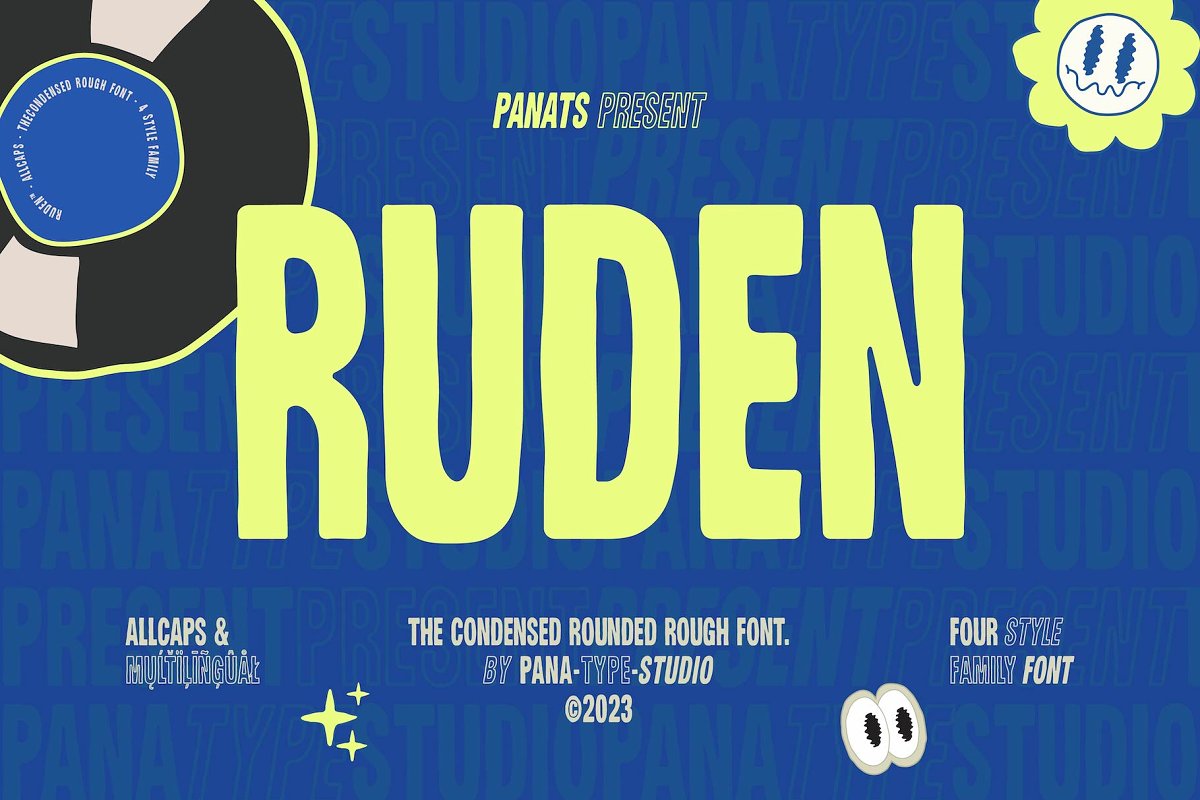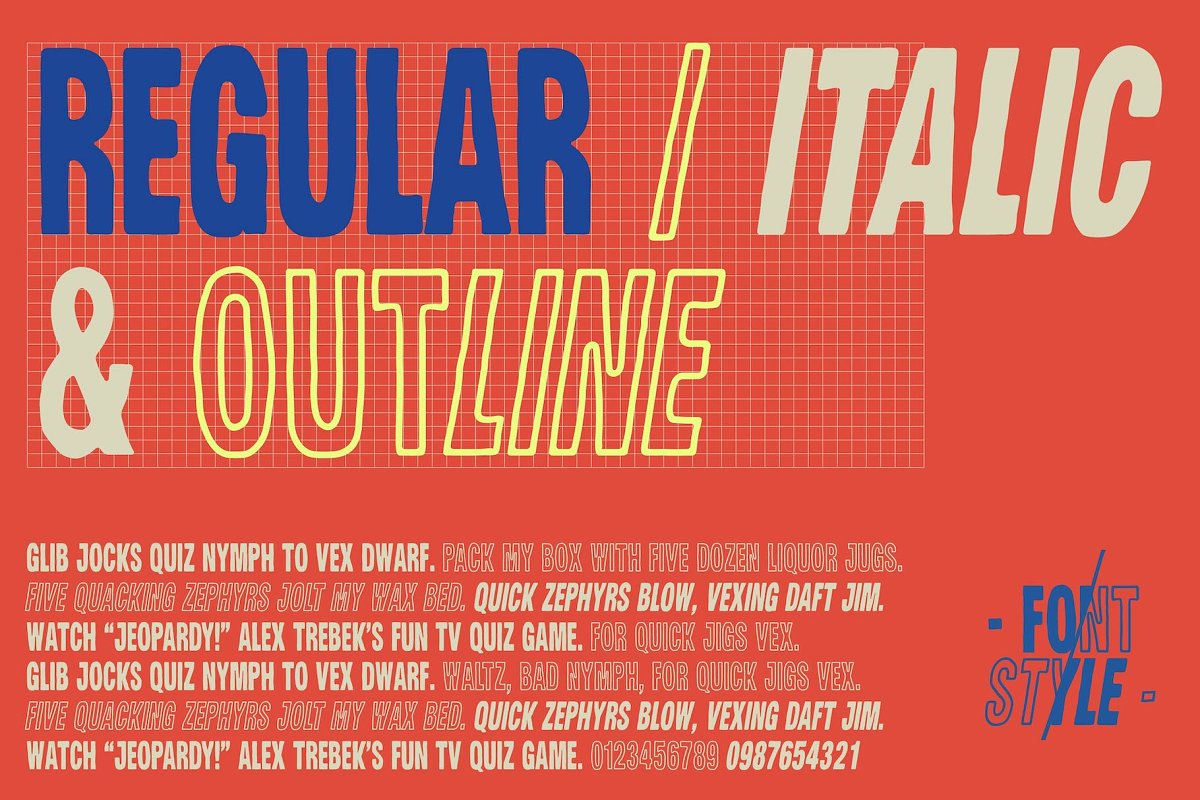
About the RUDEN Display Font
RUDEN is a condensed rounded rough typeface, with organic hand-written style, come with 4 family style ( Regular, Italic, Outline, Outline Italic ) which is perfect for your designs that want a rough style, modern vintage, elegant, soft, and carefully crafted for all graphic design needs, File Includes :OTF/TTFRuden-Regular OTF/TTFRuden-Italic OTF/TTFRuden-Outline OTF/TTFRuden-OutlineItalic OTF/TTFFollowing Language Support :LATIN EXTENDED ( Western European, Central European, South Eastern European )Thank You